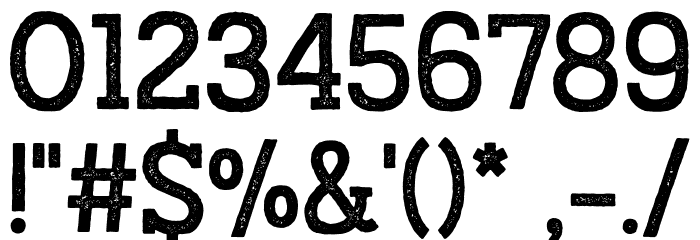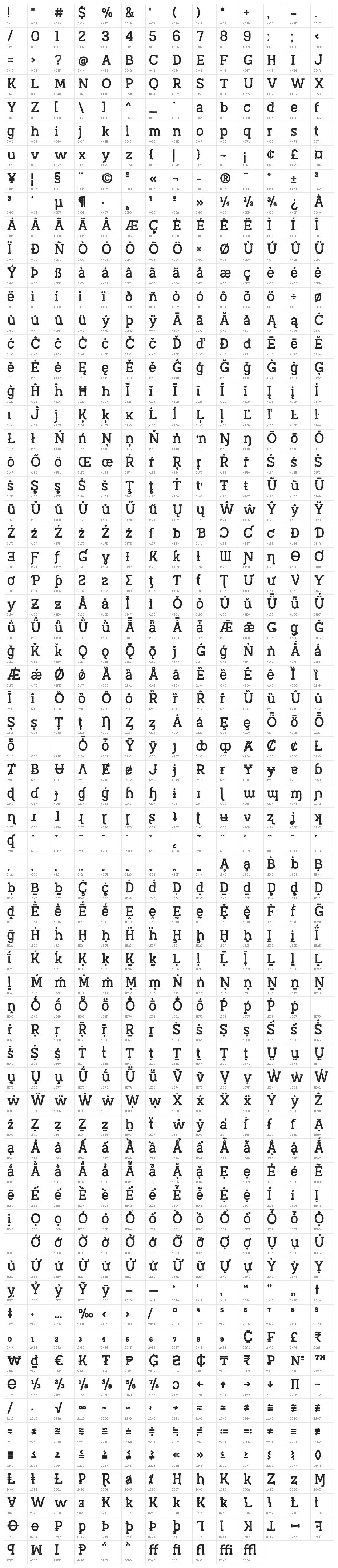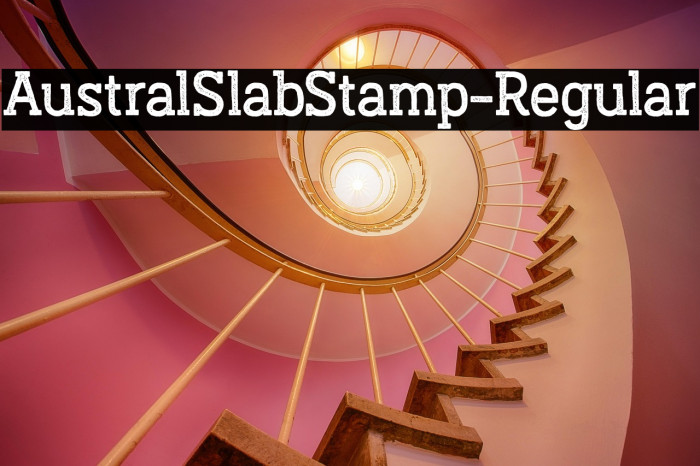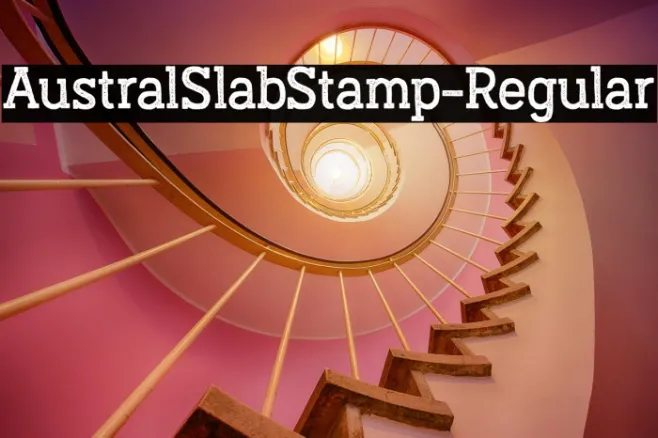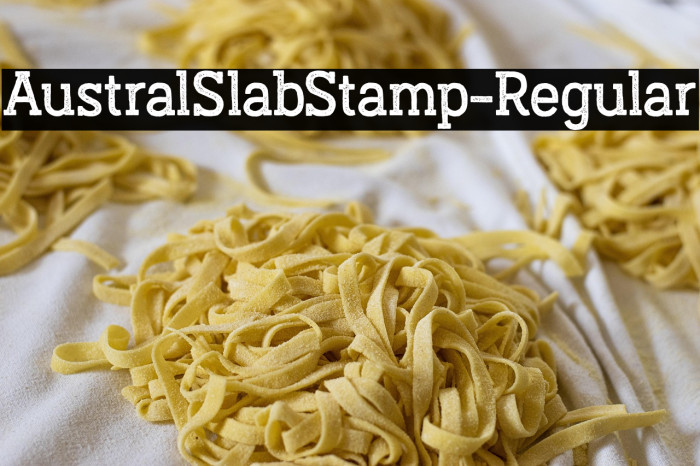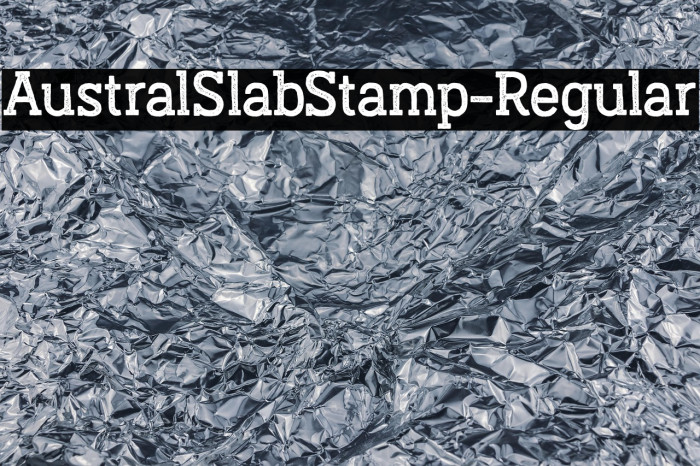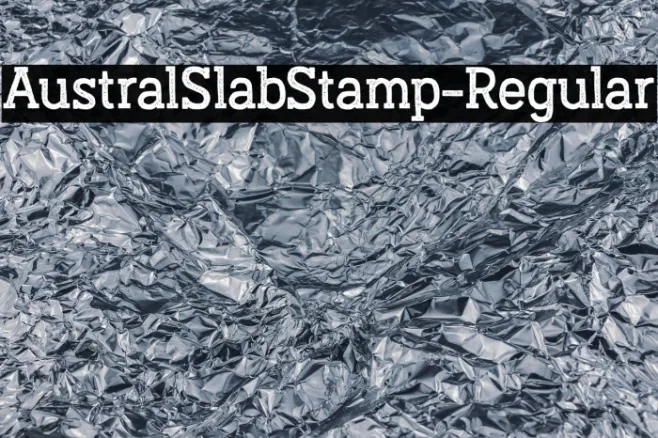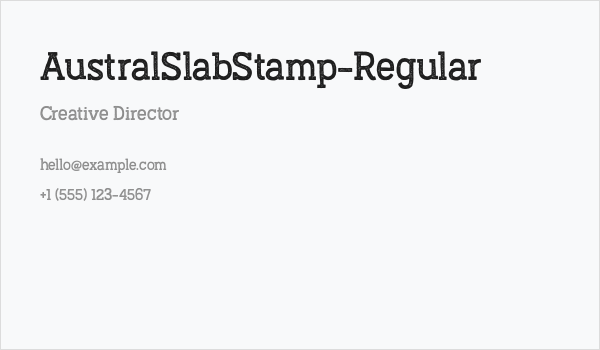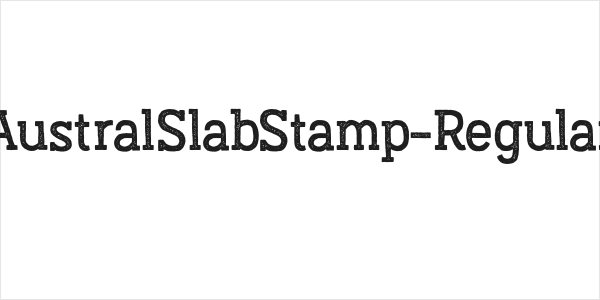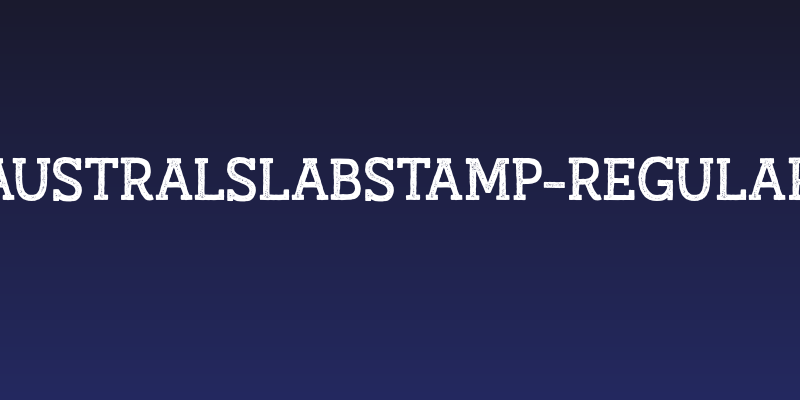
AustralSlabStamp-Regular Font
AustralSlabStamp-Regular Description
This font features a rugged, textured appearance reminiscent of vintage typewriter or stamp impressions. The characters are bold and sturdy, with slab serifs that add a touch of classic charm. The distressed texture gives it a unique, worn look, making it ideal for designs that require a rustic or industrial feel. The uppercase and lowercase letters are well-proportioned, and the numerals are clear and legible. Special characters are included, maintaining the same textured style, which enhances the font's versatility for various creative projects.
| Proposed Projects | Ideal for branding, posters, packaging, and any project needing a vintage or industrial aesthetic. |